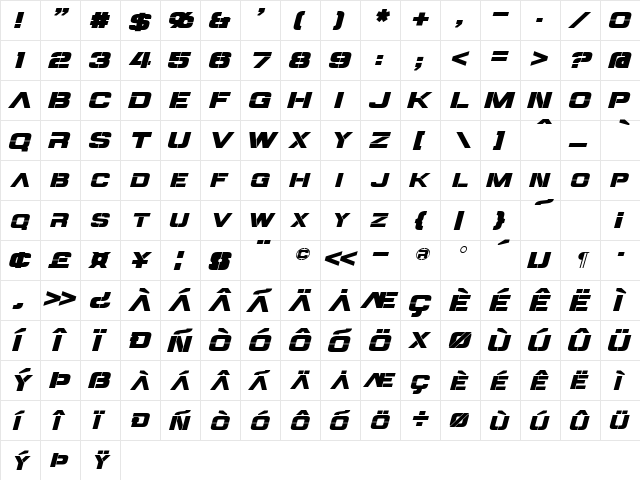
Steiner Italic
Italic · Neale Davidson Neale Davidson ·
Design Context for Steiner Typeface
Steiner takes a measured approach to typography — its balanced proportions and neutral character make it a reliable workhorse for both digital and print work. The dynamic lean of this cut emphasises speed and emphasis in any layout.
Pro Tip: Try Steiner for annotation and caption copy alongside an upright companion — the contrast in angle creates a dynamic but ordered typographic system.